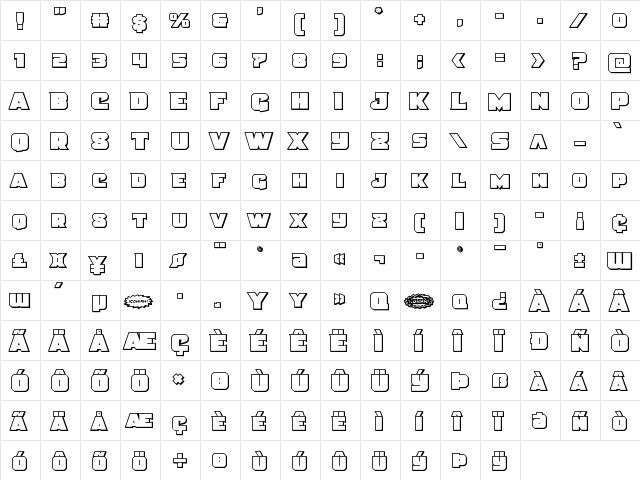
Justice Outline Straight Outline
Design Context for Justice Outline Straight Typeface
Justice Outline Straight is built around its visual character rather than neutral utility — its distinctive forms are designed to make an impression at display sizes.
Font Pairing: Pair with a clean neutral sans-serif for body copy to let Justice Outline Straight's character lead without overwhelming the composition.
Pro Tip: Treat Justice Outline Straight as the centrepiece of your typographic hierarchy. One strong heading set in a decorative face can carry an entire layout.